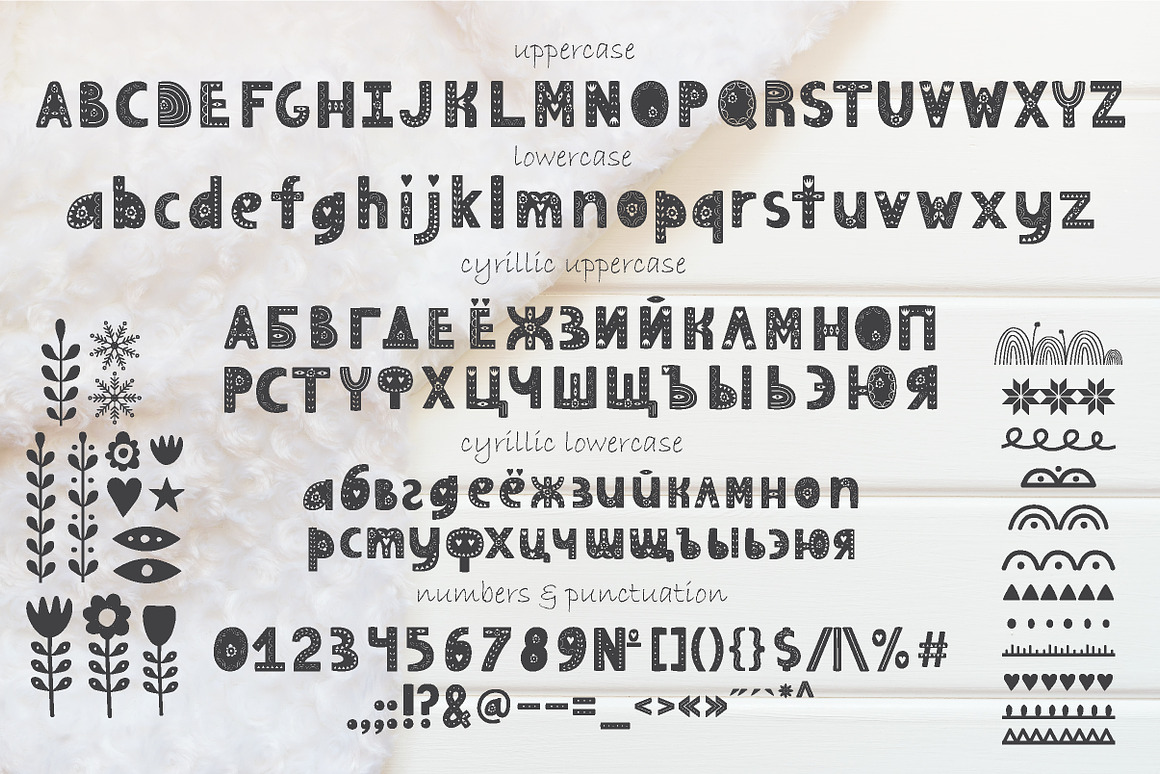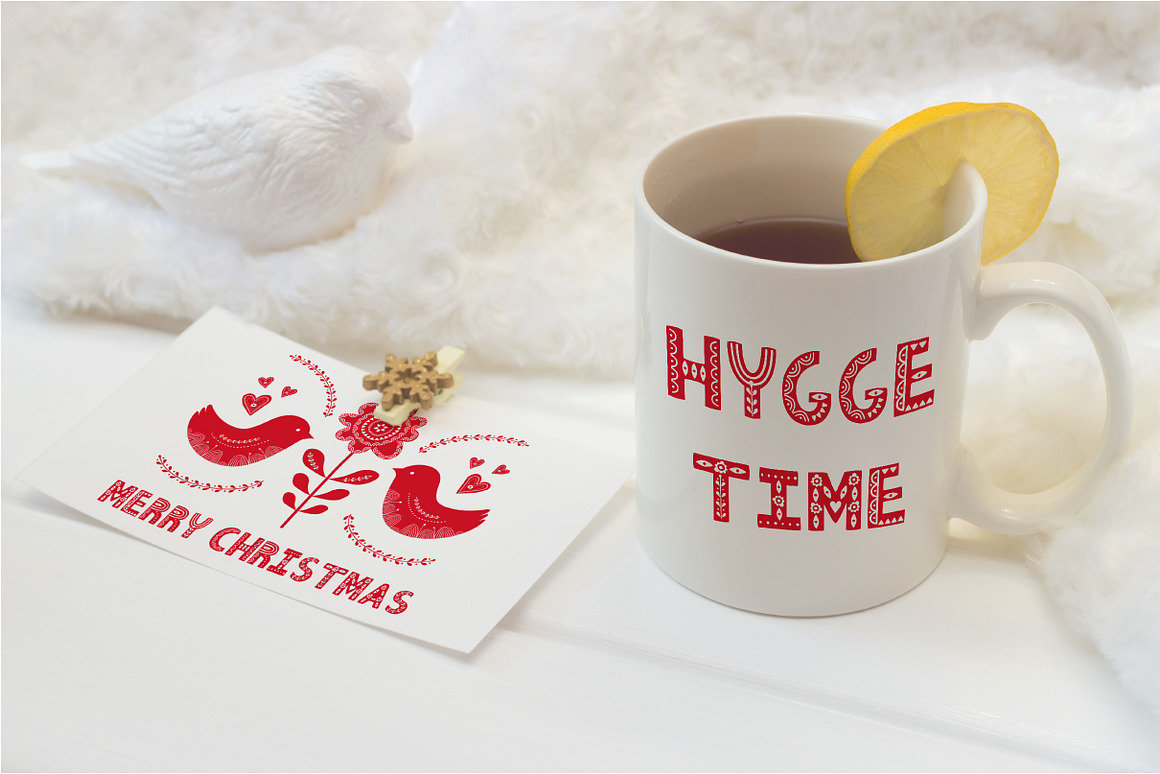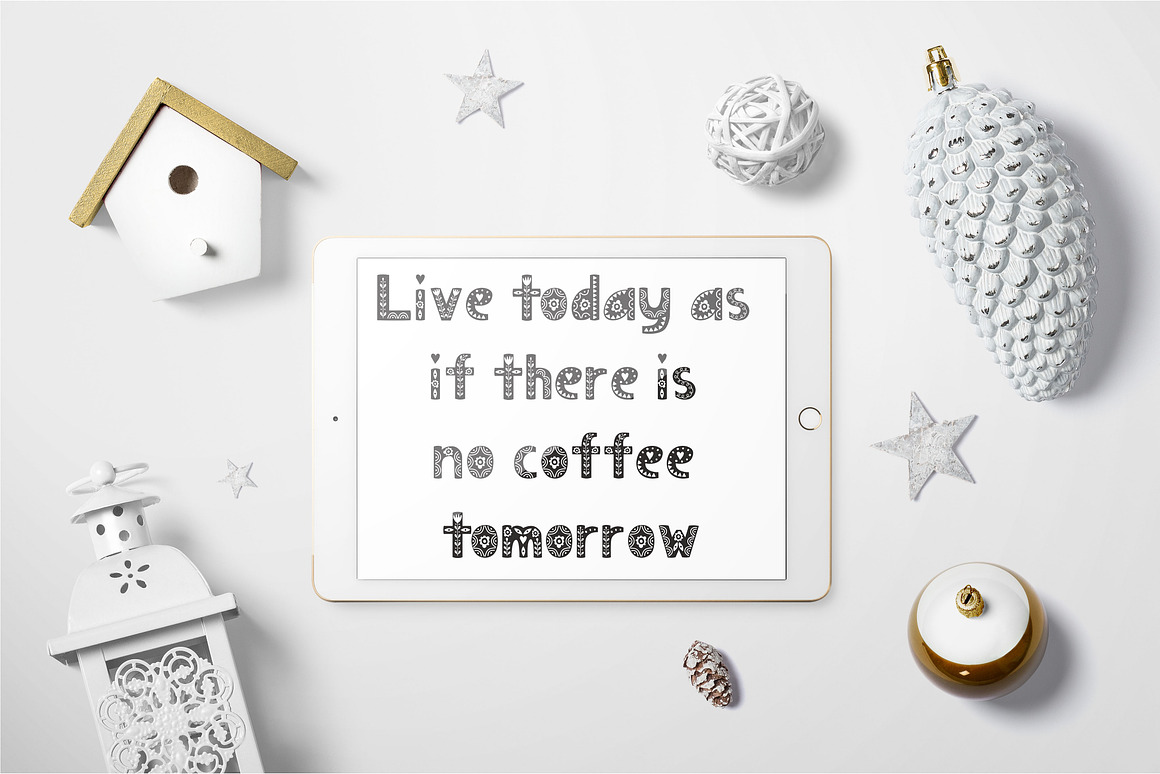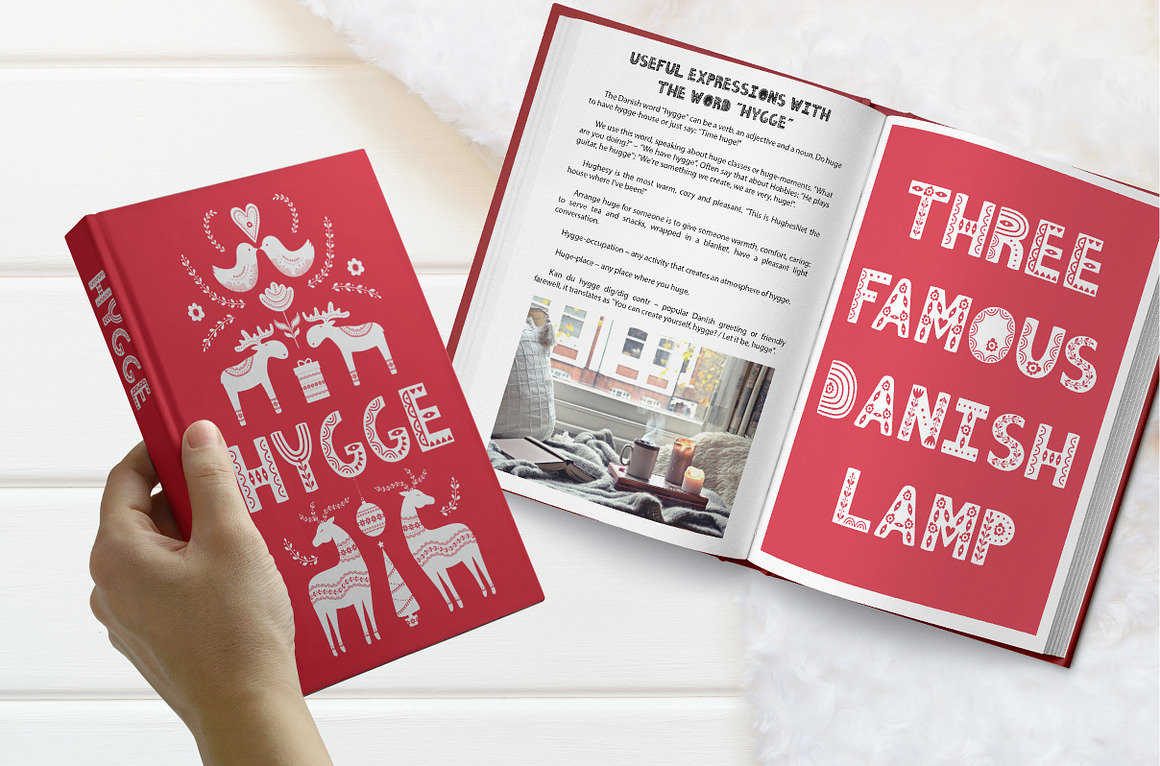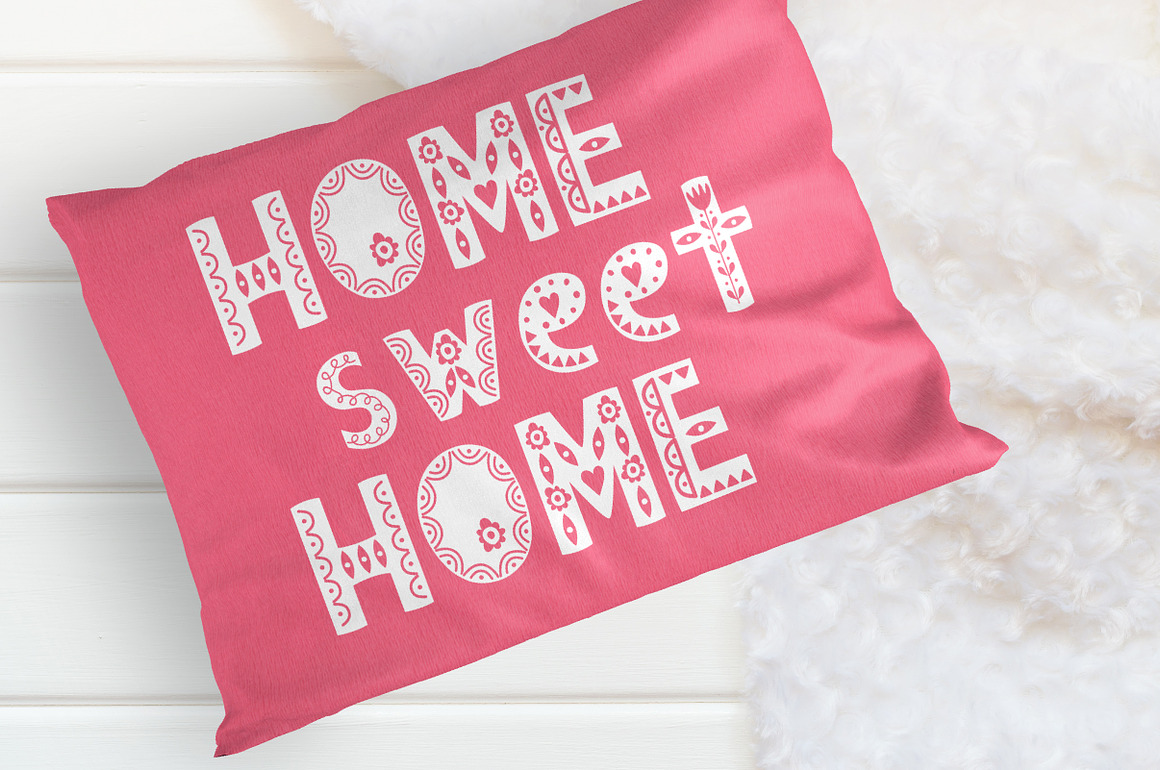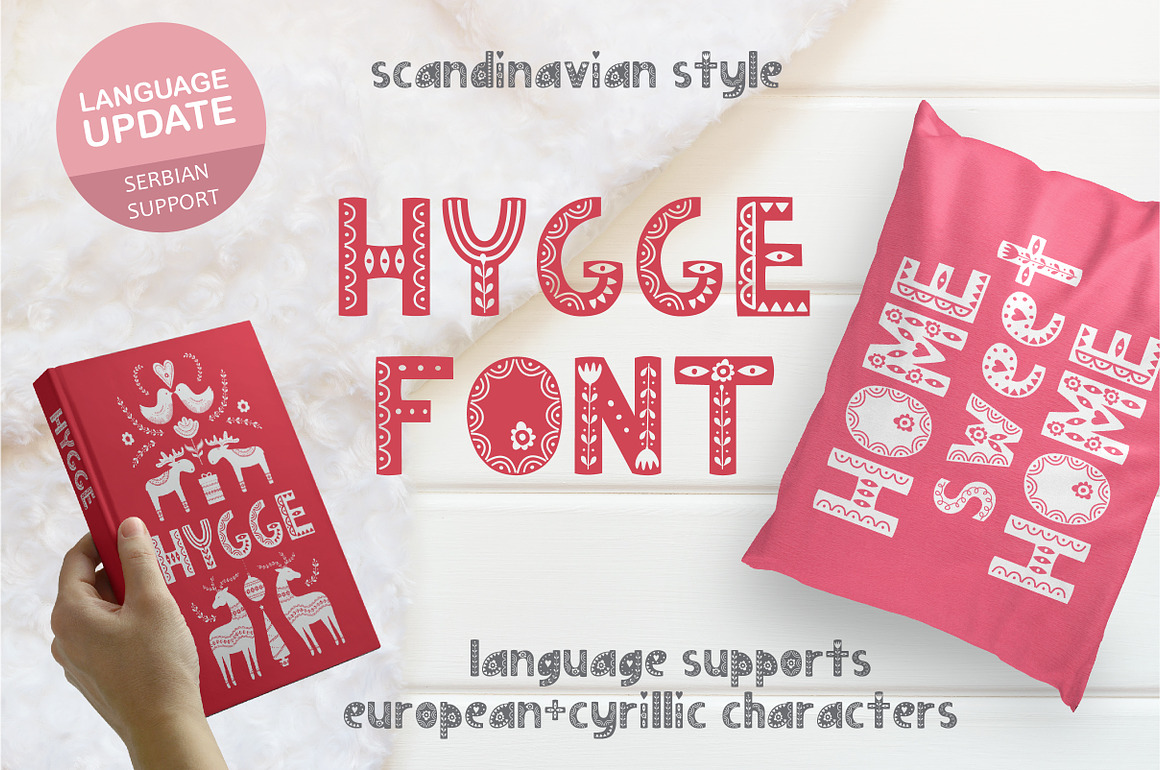
Hygge Scandinavian Font
This Hygge Scandinavian Font is perfect for lifestyle branding, Nordic-inspired logos, wellness websites, cozy café signage, home décor packaging, artisanal product labels, mindfulness apps, sustainable fashion brands, boutique hotel materials, and hygge-themed social media content.
What makes this Hygge Scandinavian Font exciting is its authentic embodiment of Danish hygge philosophy through typography. The font captures the essence of comfort, coziness, and contentment with its warm, inviting letterforms and gentle curves. Its organic flow and natural spacing create an immediate sense of tranquility and well-being that resonates with audiences seeking authentic, mindful brand experiences.
The Hygge Scandinavian Font family includes regular and bold weights with complementary script variations. This thoughtfully curated font family offers designers the perfect tools to create harmonious typographic compositions that evoke the simplicity and warmth characteristic of Scandinavian design philosophy.
Creative professionals consistently choose Hygge Scandinavian Font Free Download for projects that require emotional connection and authentic storytelling. This font's distinctive Nordic character perfectly captures the growing global appreciation for Scandinavian lifestyle values, making it an excellent choice for brands embracing sustainability, minimalism, and mindful living.
The carefully crafted letterforms of Hygge Scandinavian Font feature subtle imperfections that add human warmth and personality to any design. Its hand-drawn aesthetic maintains legibility while conveying the artisanal quality that modern consumers increasingly value in authentic brand communications.
Professional designers appreciate how Hygge Scandinavian Font seamlessly bridges traditional craftsmanship with contemporary design needs. The font's versatile nature allows it to work beautifully in both digital applications and handcrafted print materials, maintaining its cozy appeal across all media formats.
The cultural authenticity embedded in Hygge Scandinavian Font makes it particularly effective for brands seeking to connect with consumers' desire for meaningful, slower-paced lifestyle choices. Its gentle character encourages longer reading engagement while creating memorable brand impressions that align with wellness and mindfulness trends.
Whether creating packaging for organic products or designing content for meditation apps, Hygge Scandinavian Font Free Download provides the typographic foundation for brands that want to communicate authenticity, comfort, and the timeless appeal of Scandinavian design sensibilities in today's fast-paced digital world.